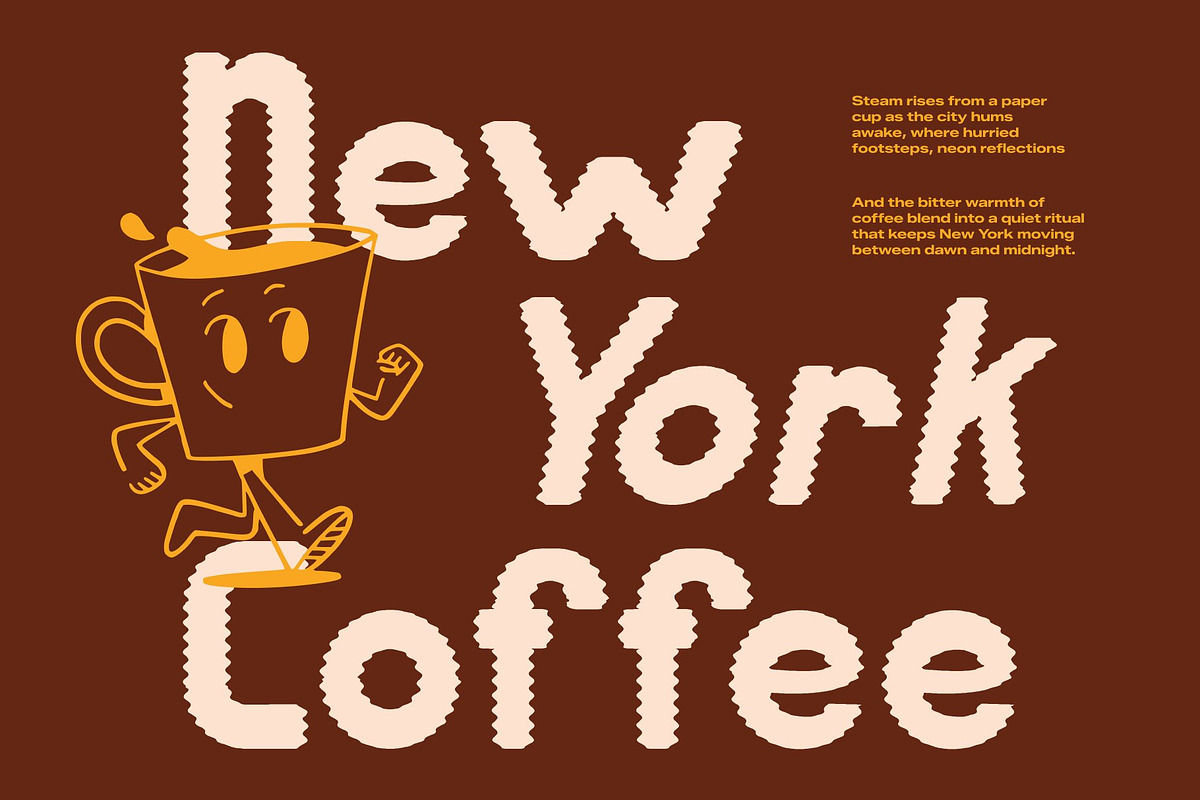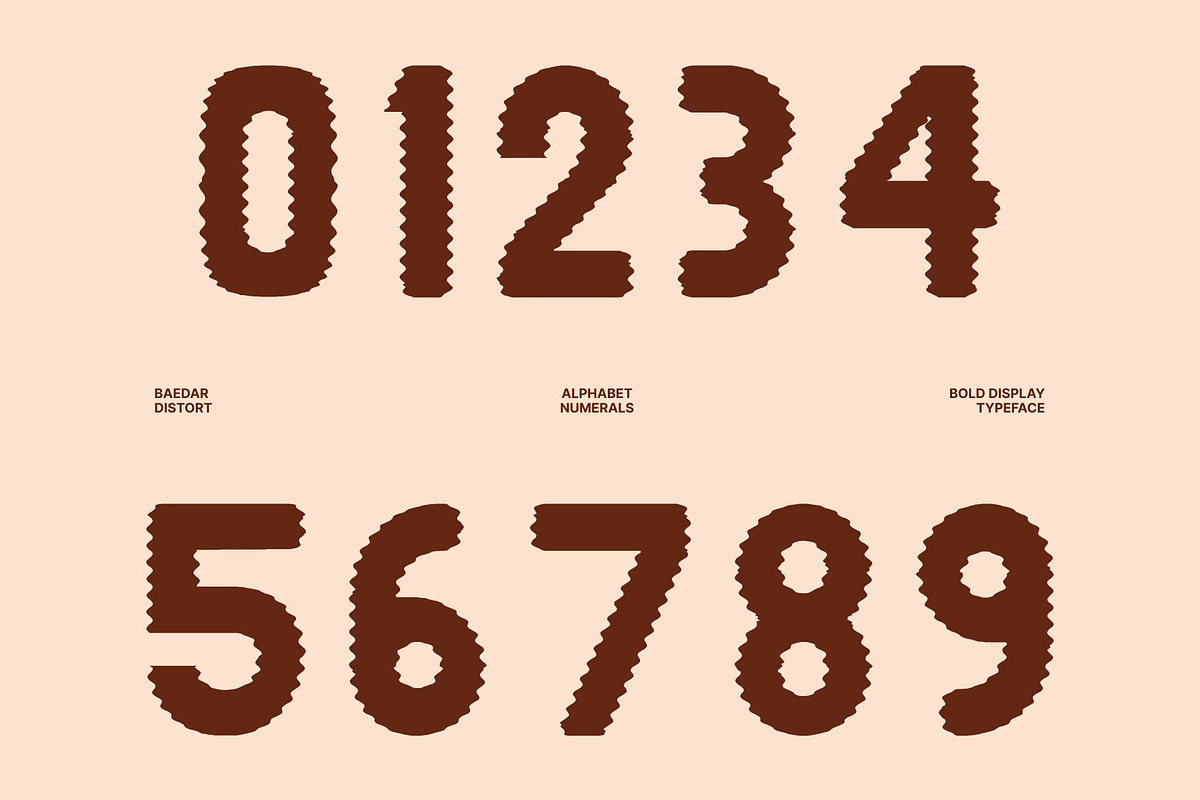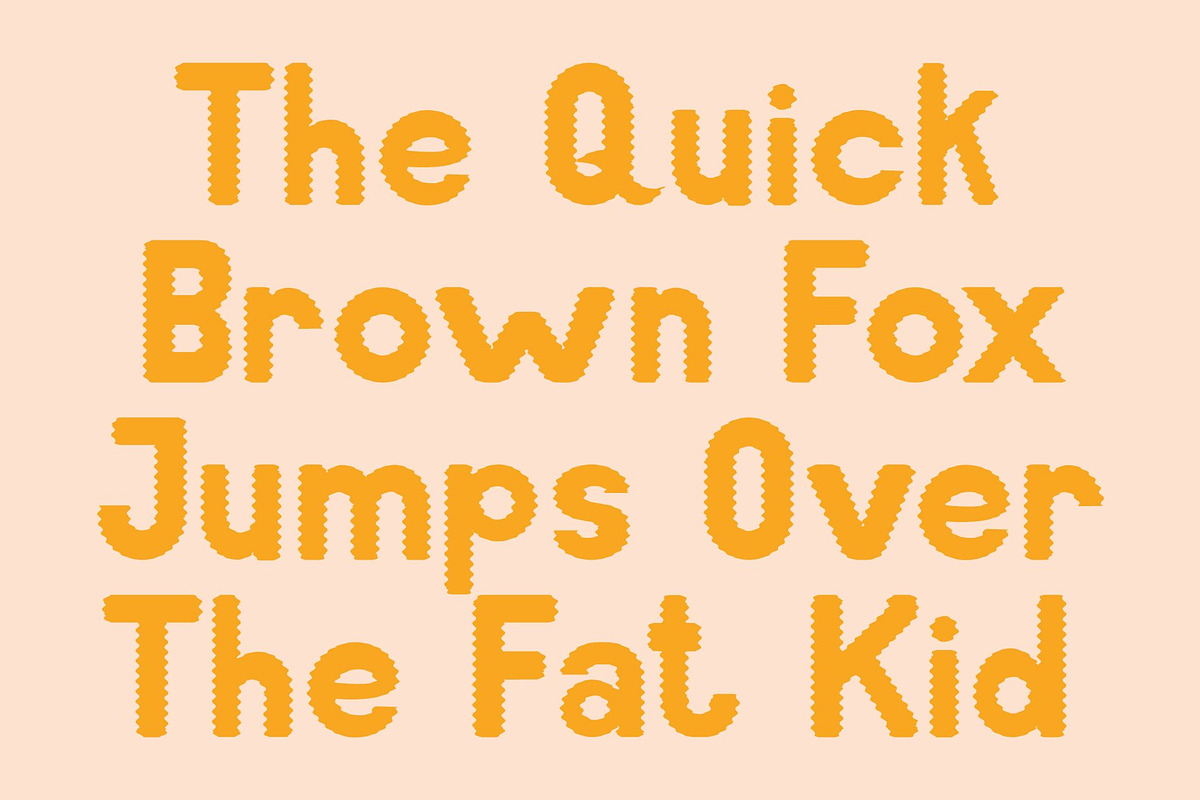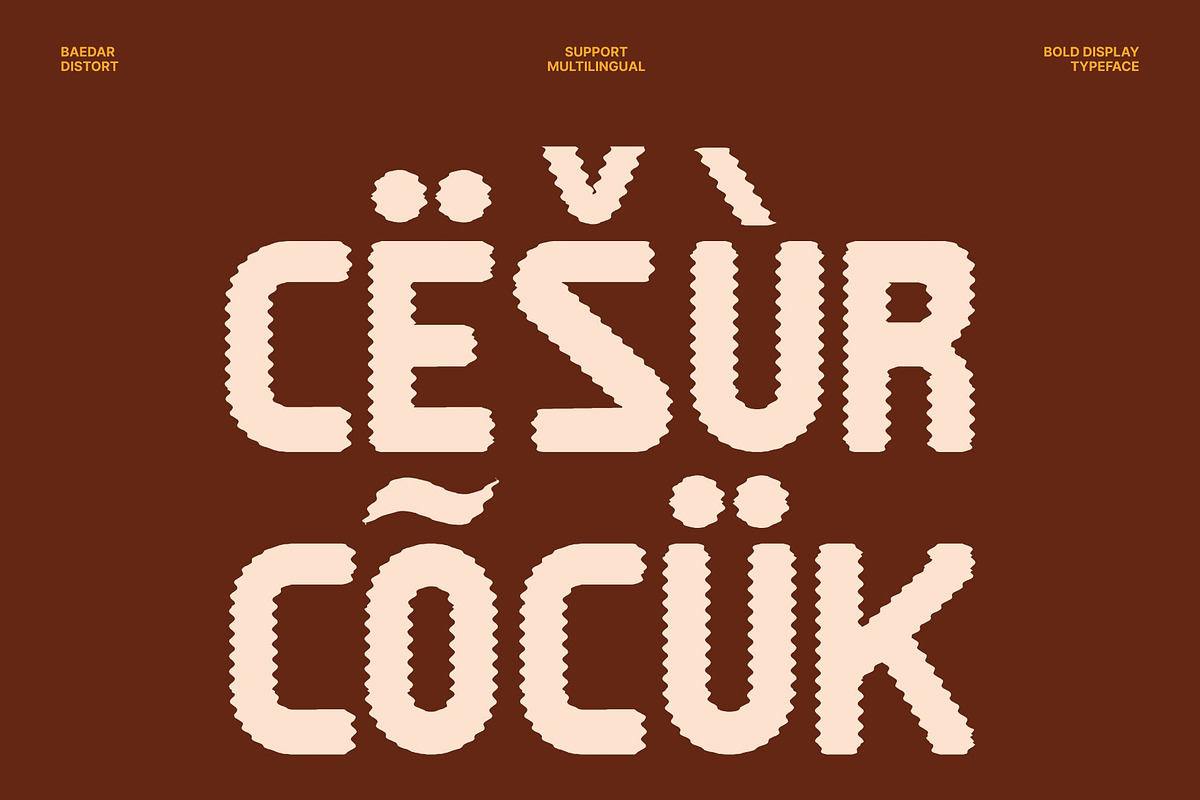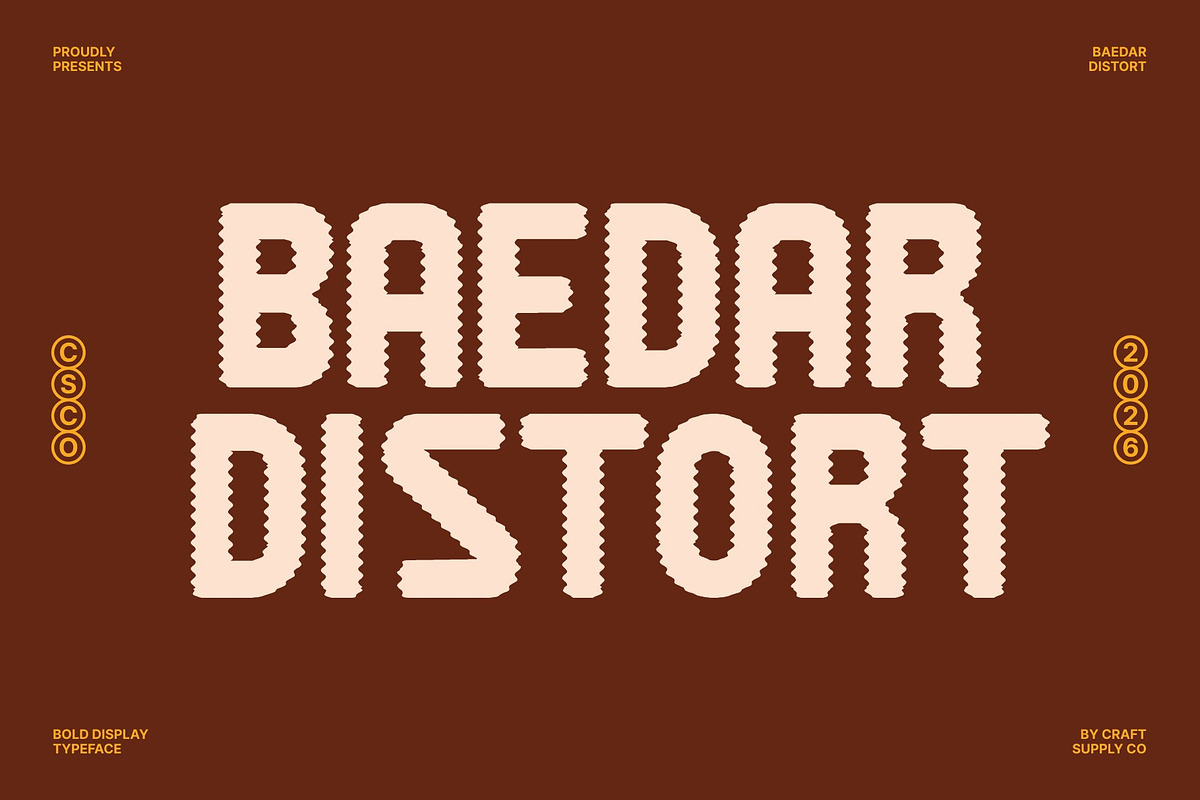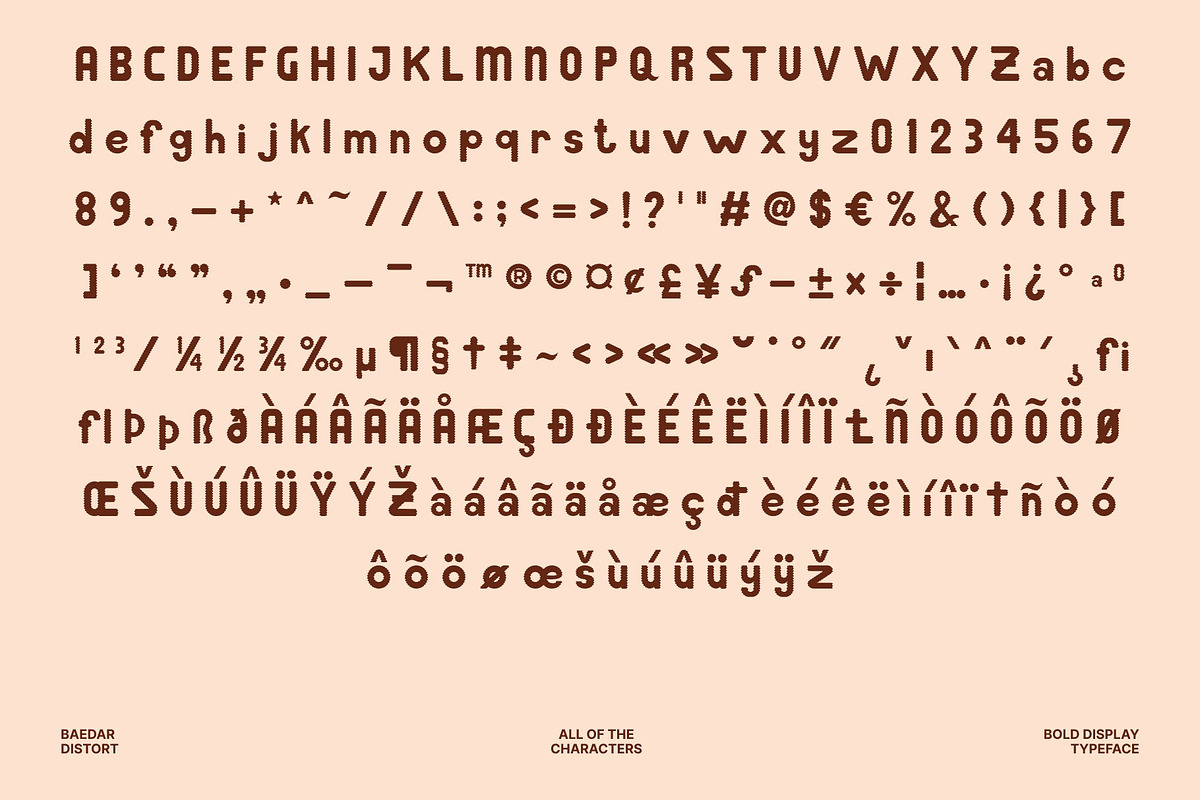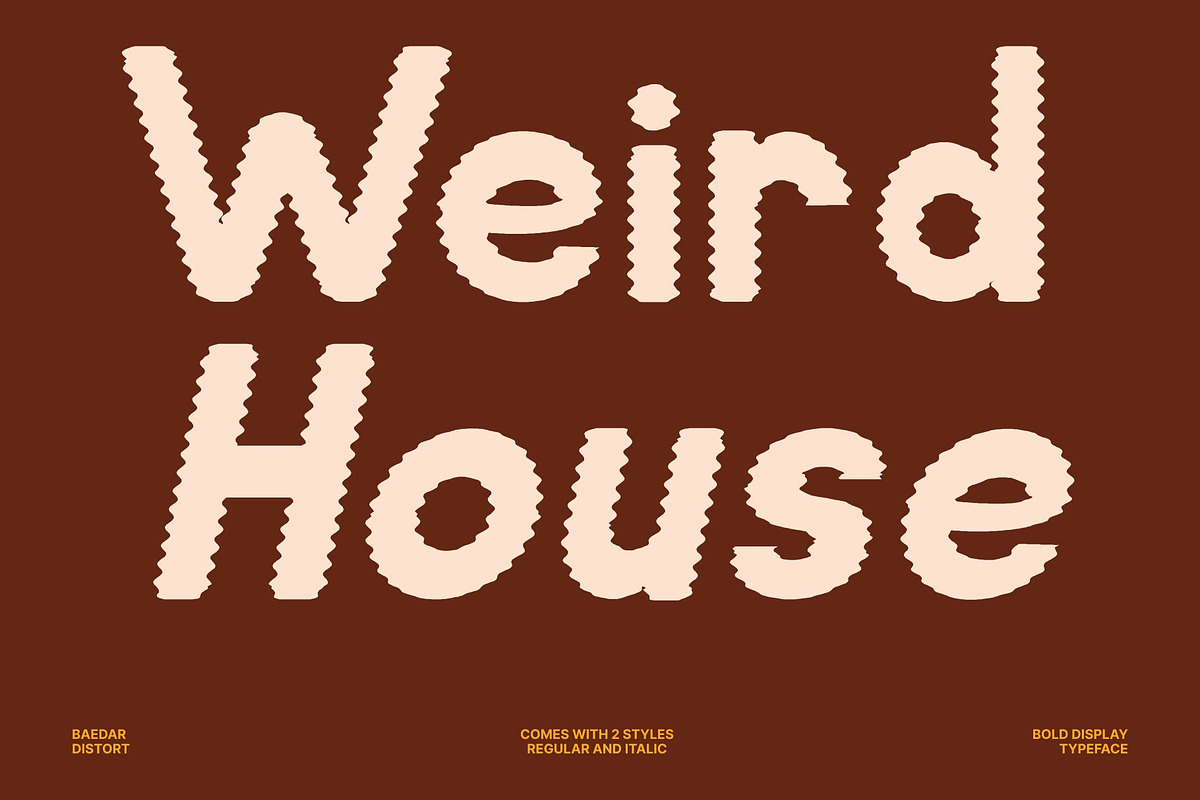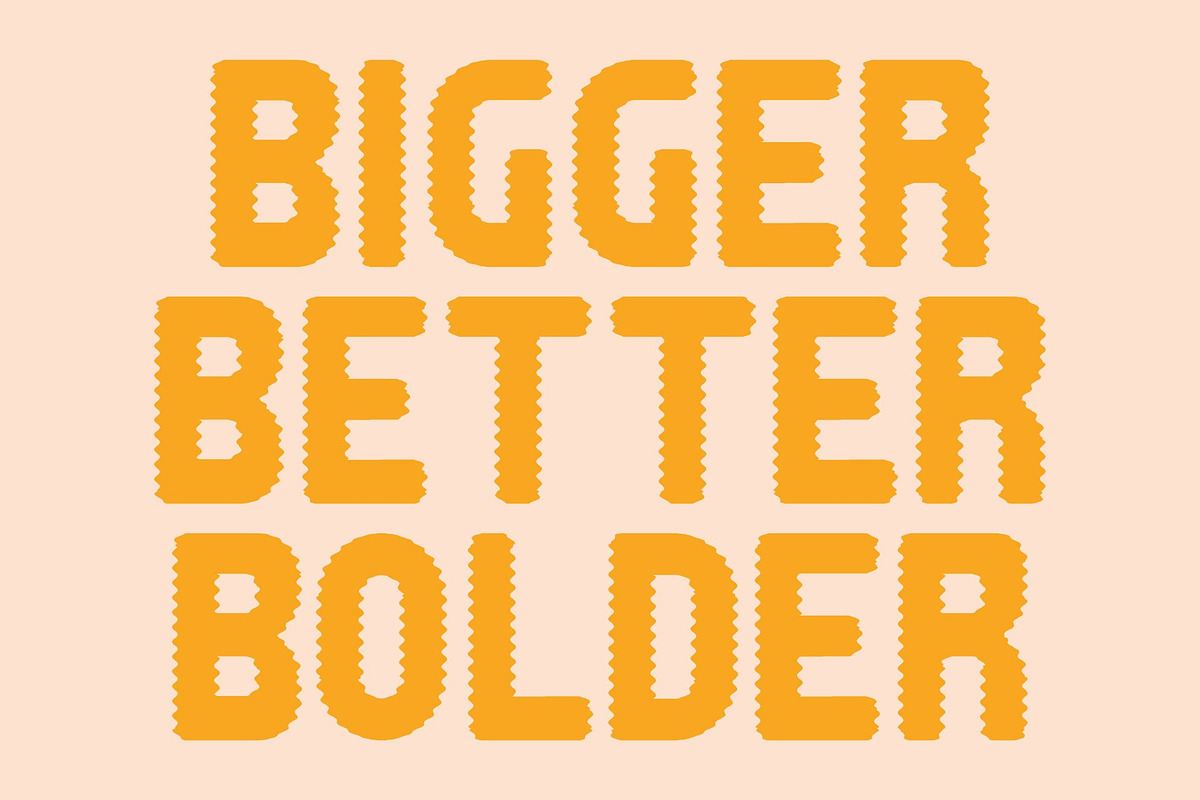
Baedar Distort
Baedar Distort – Bold Rounded Sans Serif Font: Where Friendly Strength Meets Organic Distortion
Soft Rounded Forms with Confident Presence This is a bold rounded sans serif font designed to combine strength with warmth and approachability. Its soft curves and confident strokes create a welcoming visual identity filled with energy, clarity, and modern character. Every character feels bold yet friendly, making the font perfect for projects that require strong communication without sacrificing personality.
Distort Effect with Gentle Organic Motion This font features fluid organic contours along the letter edges that create a subtle melting effect. This expressive detailing introduces movement, softness, and artistic visual depth while preserving the font’s clean and refined structure. The result is a dynamic appearance that feels lively, contemporary, and visually engaging.
Modern Warmth with Creative Expression This font delivers a typographic identity that feels approachable, stylish, and expressive. Its bold forms combined with flowing contours create a unique balance between stability and creativity, making it suitable for a wide variety of modern design applications.
Baedar Distort Regular
Baedar Distort Italic